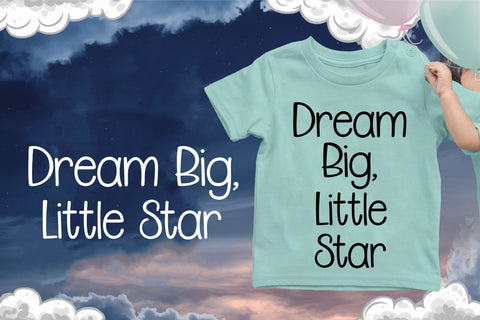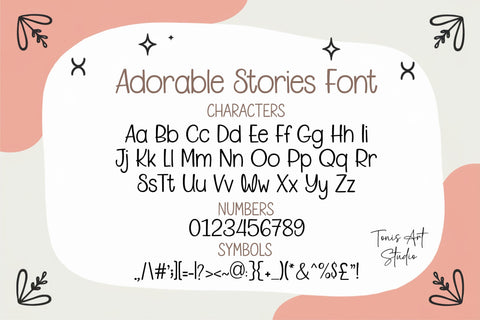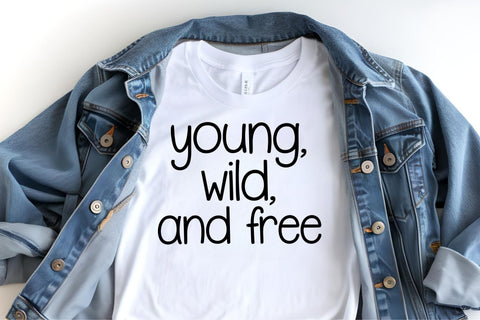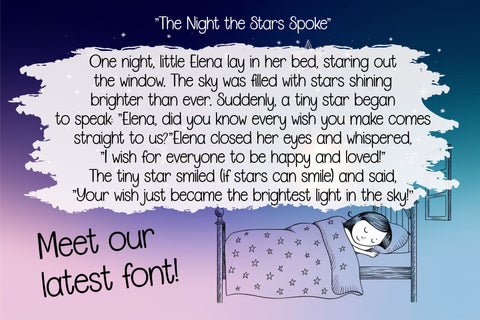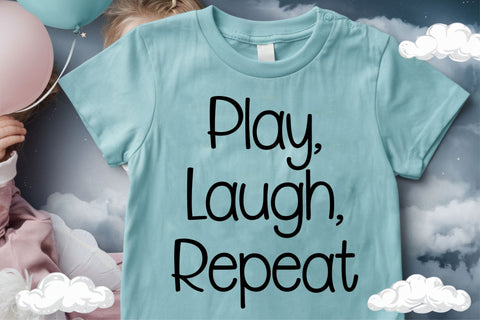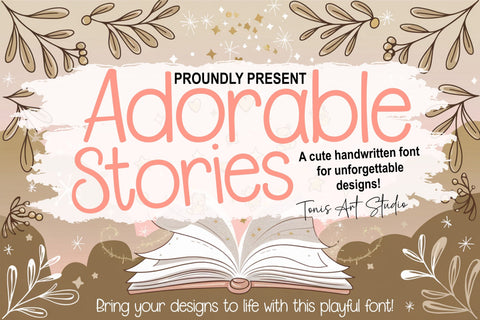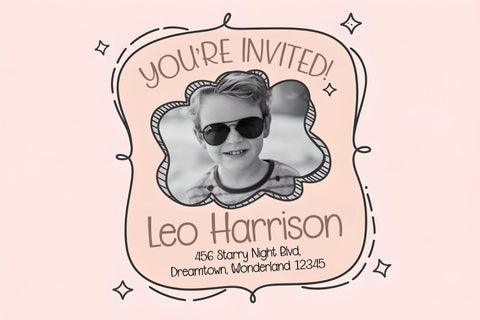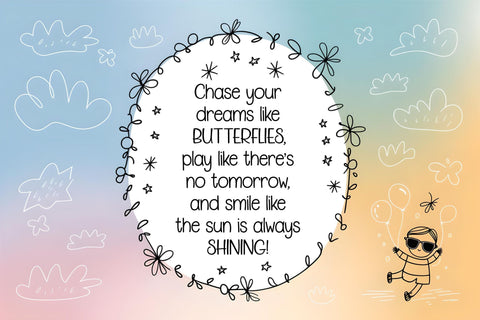
Adorable Stories Font | Handwritten SVG | Cute Kids Letters OTF & TTF for Cricut & Silhouette
Adorable Stories Font
A playful and whimsical handwritten font, perfect for creating magical and child-inspired designs.